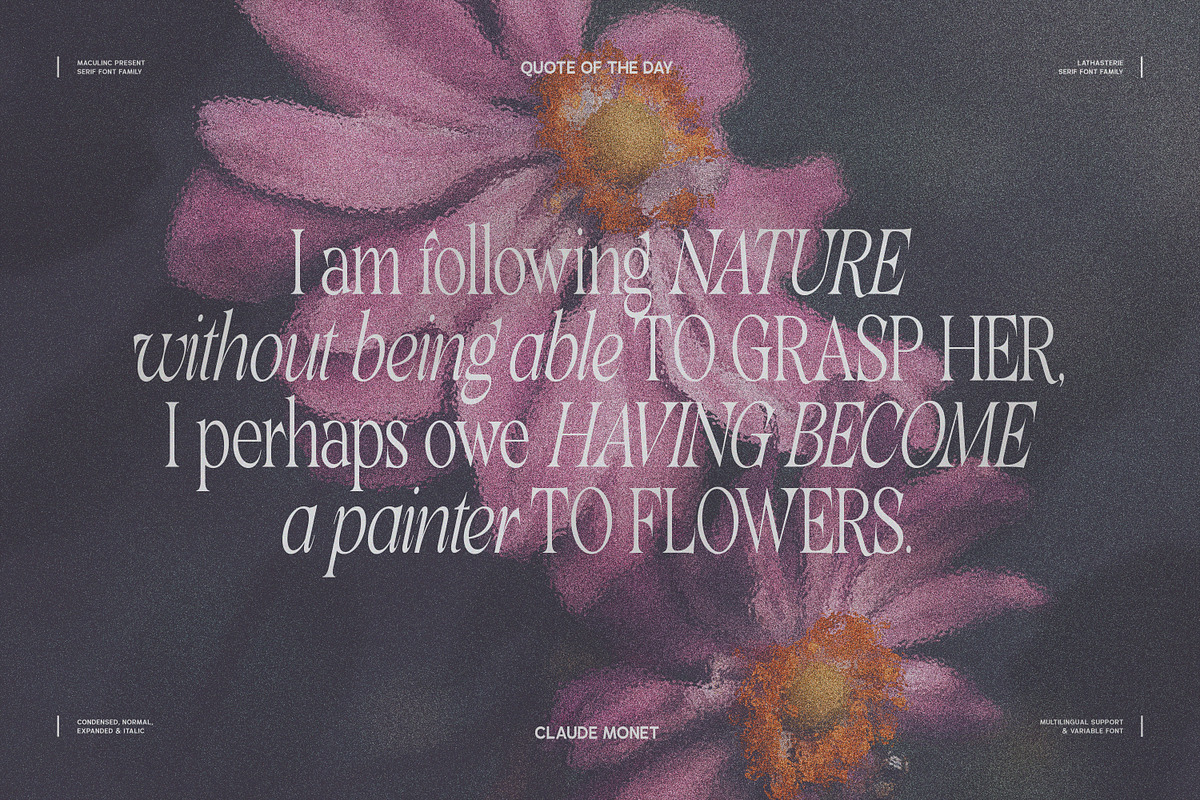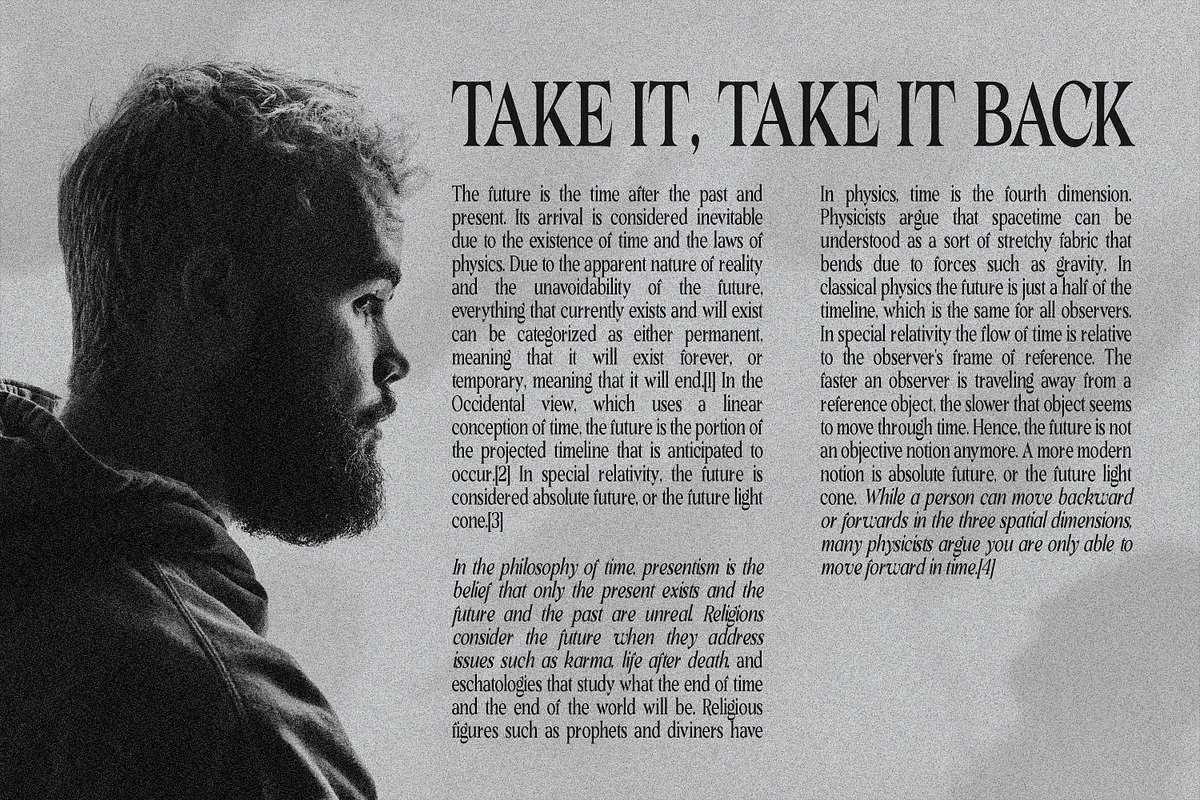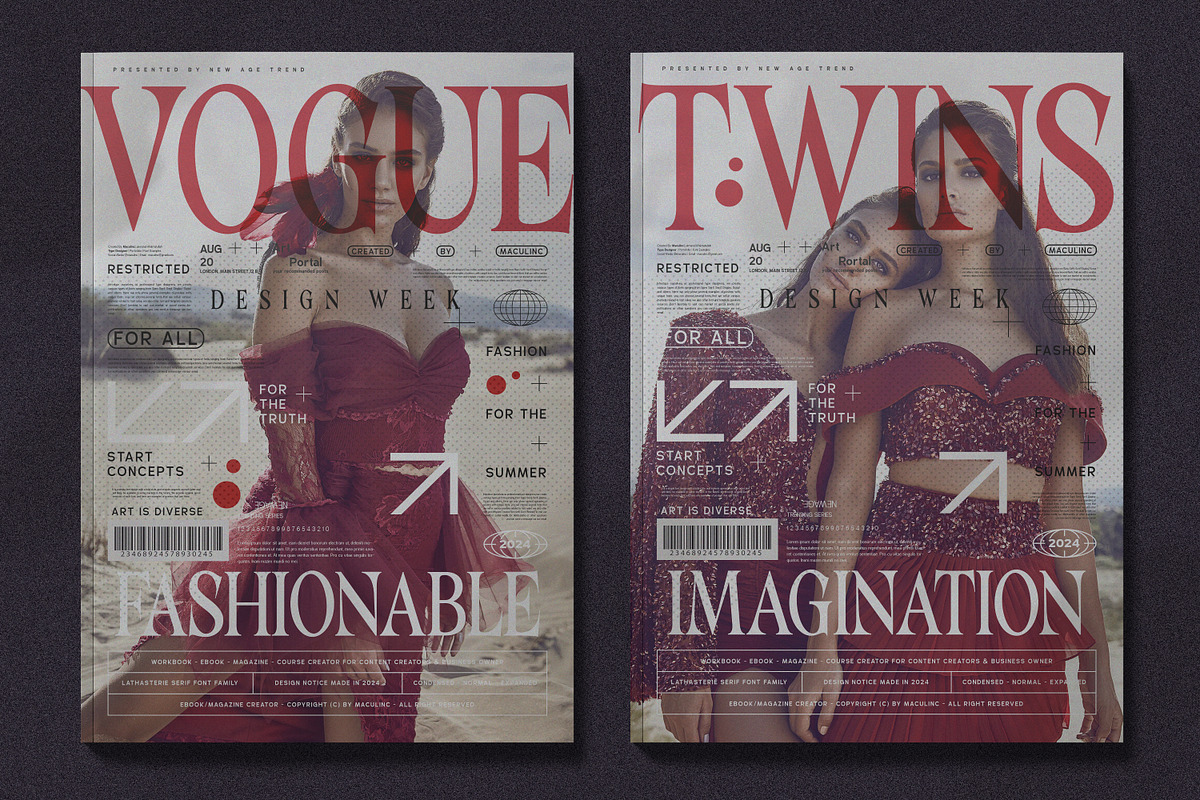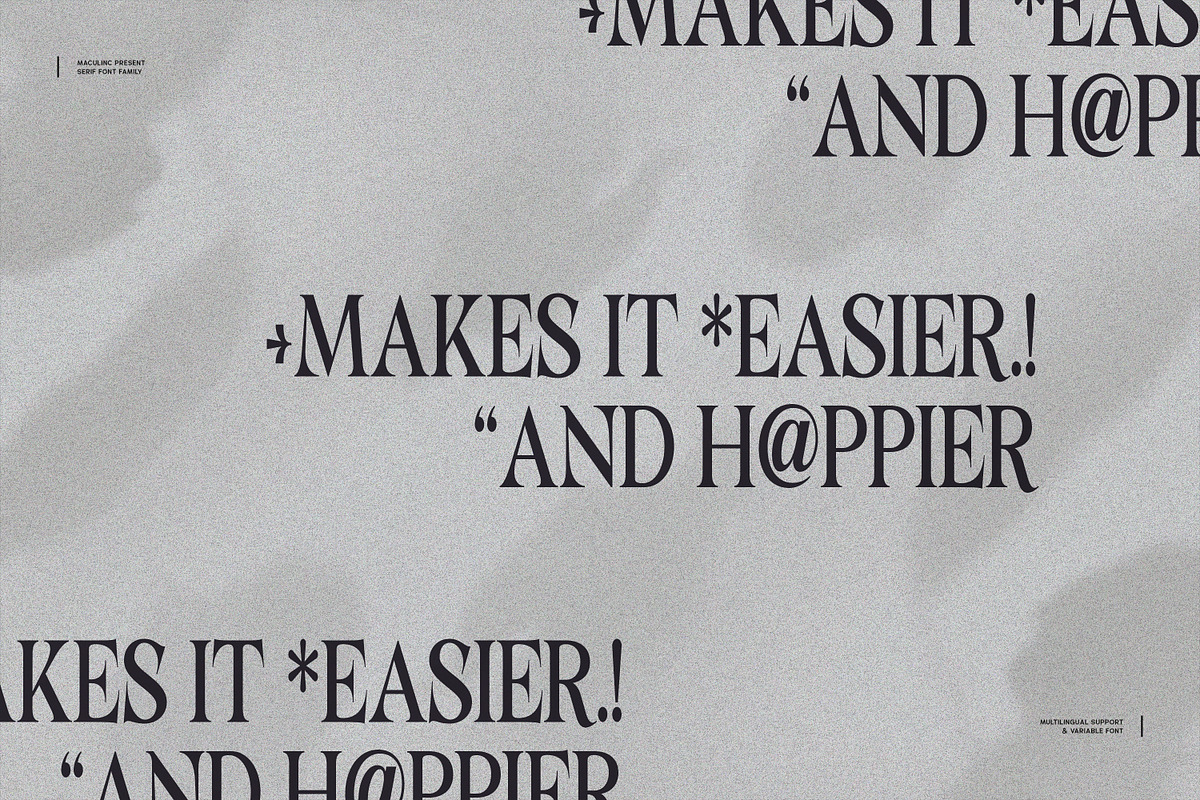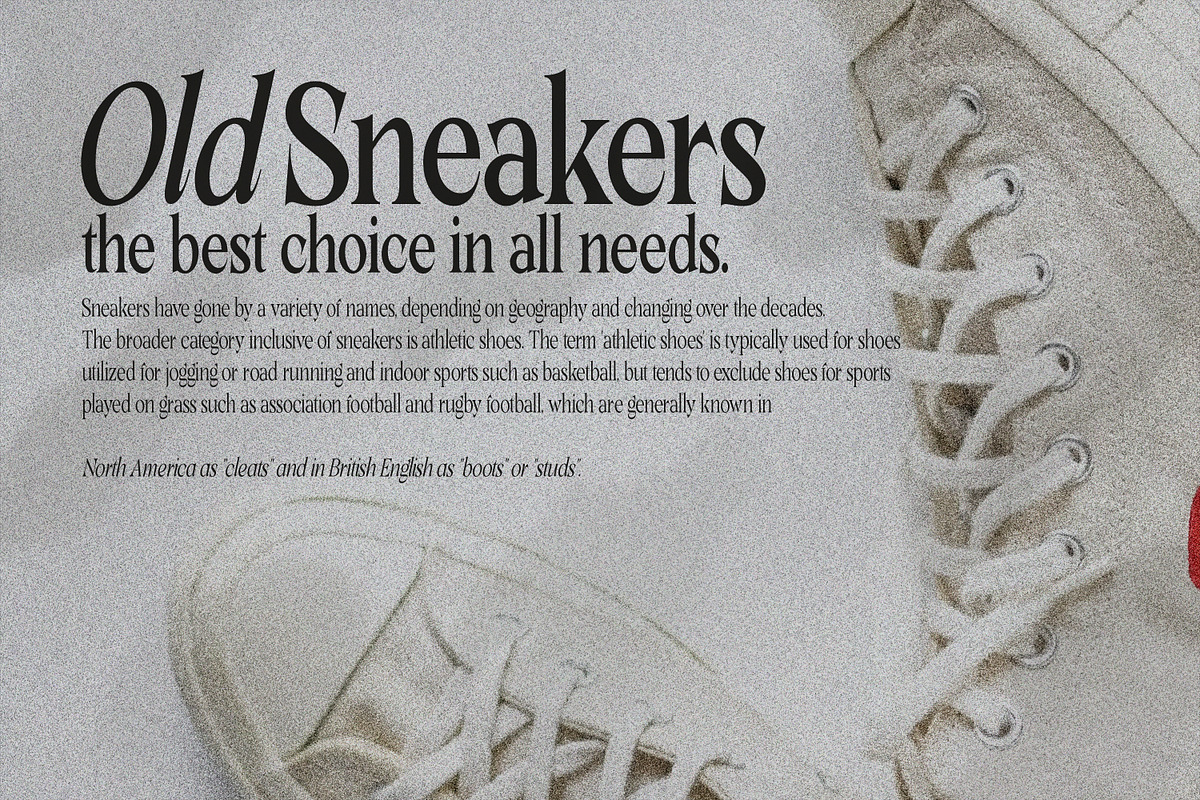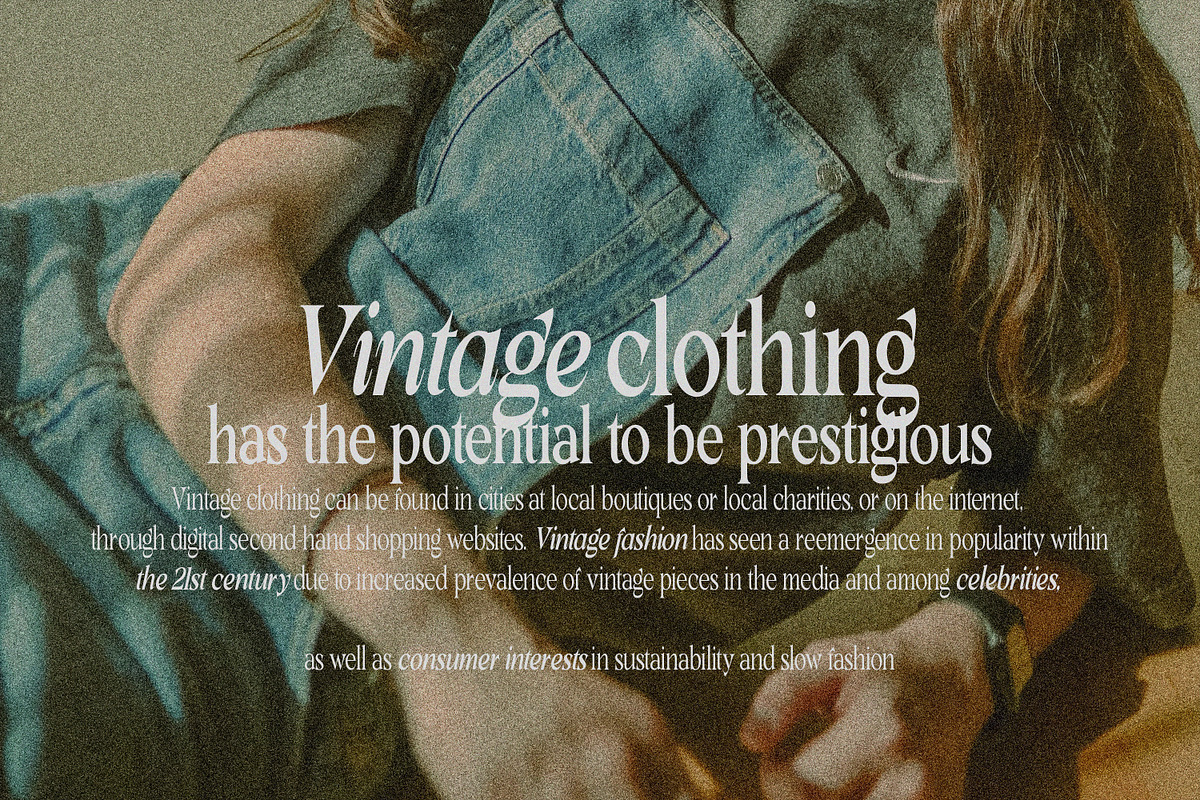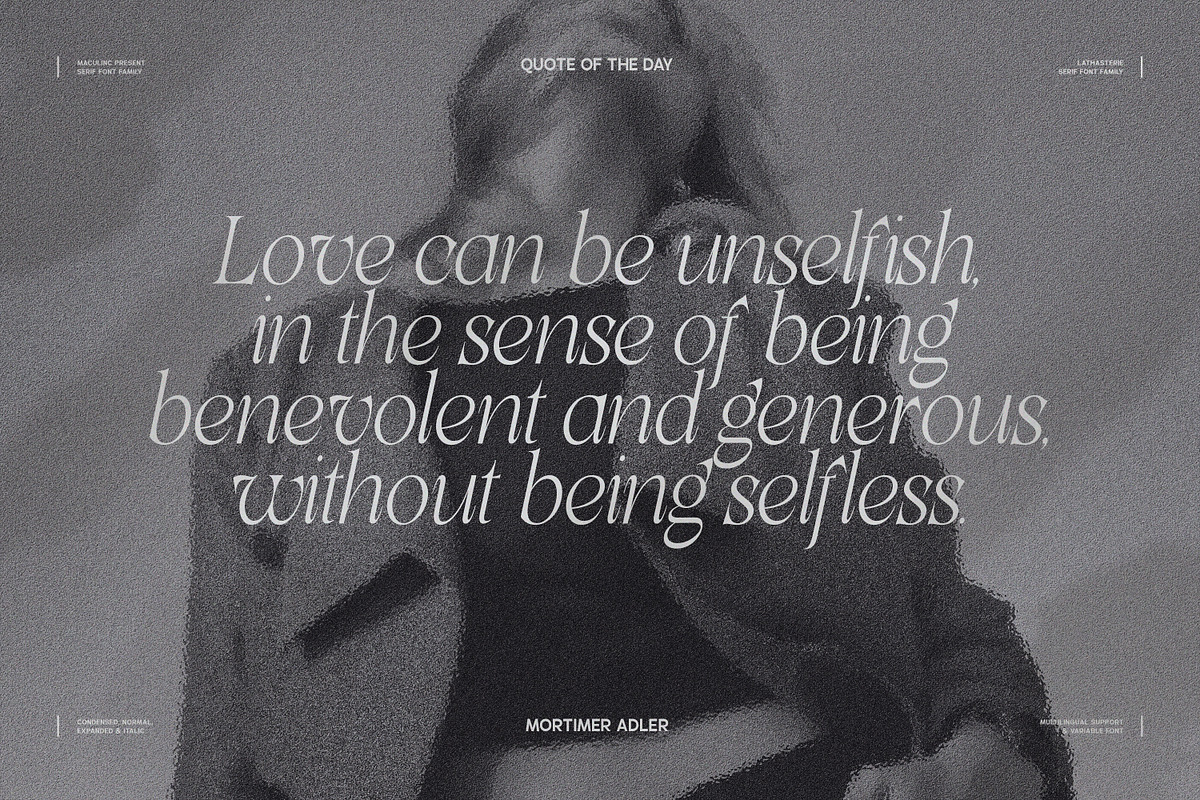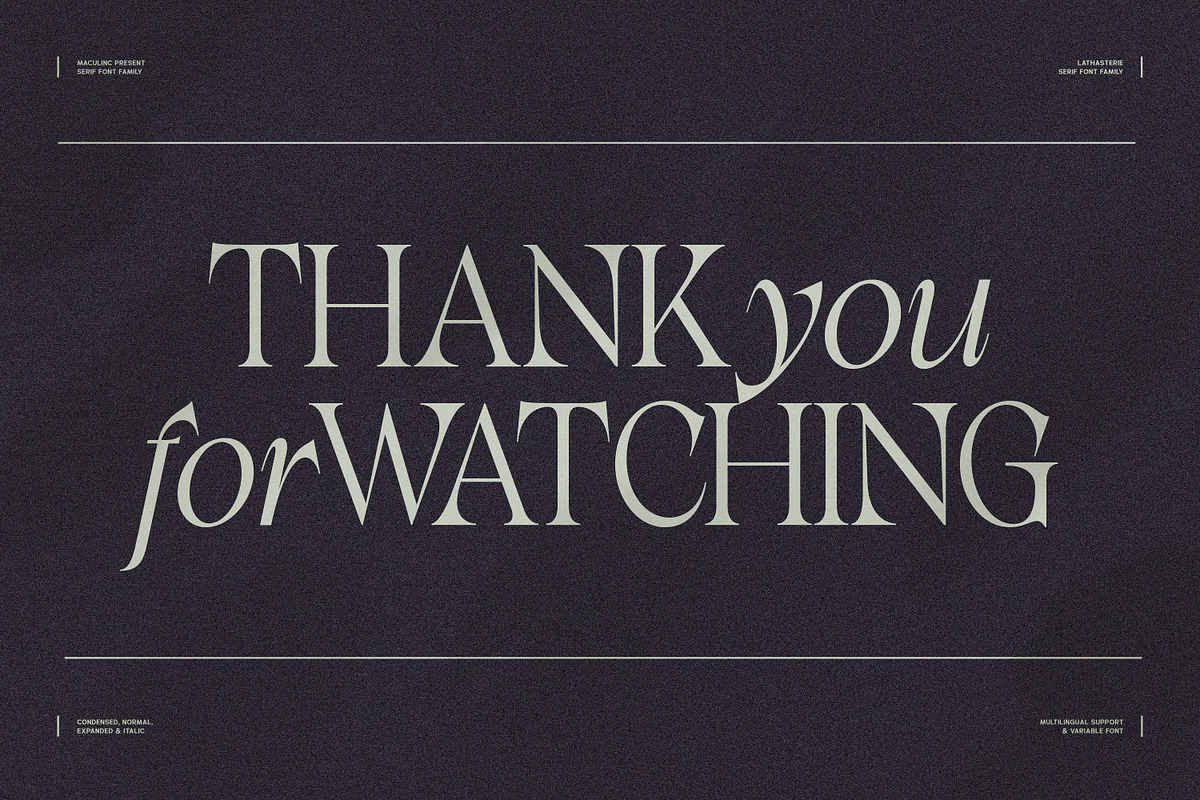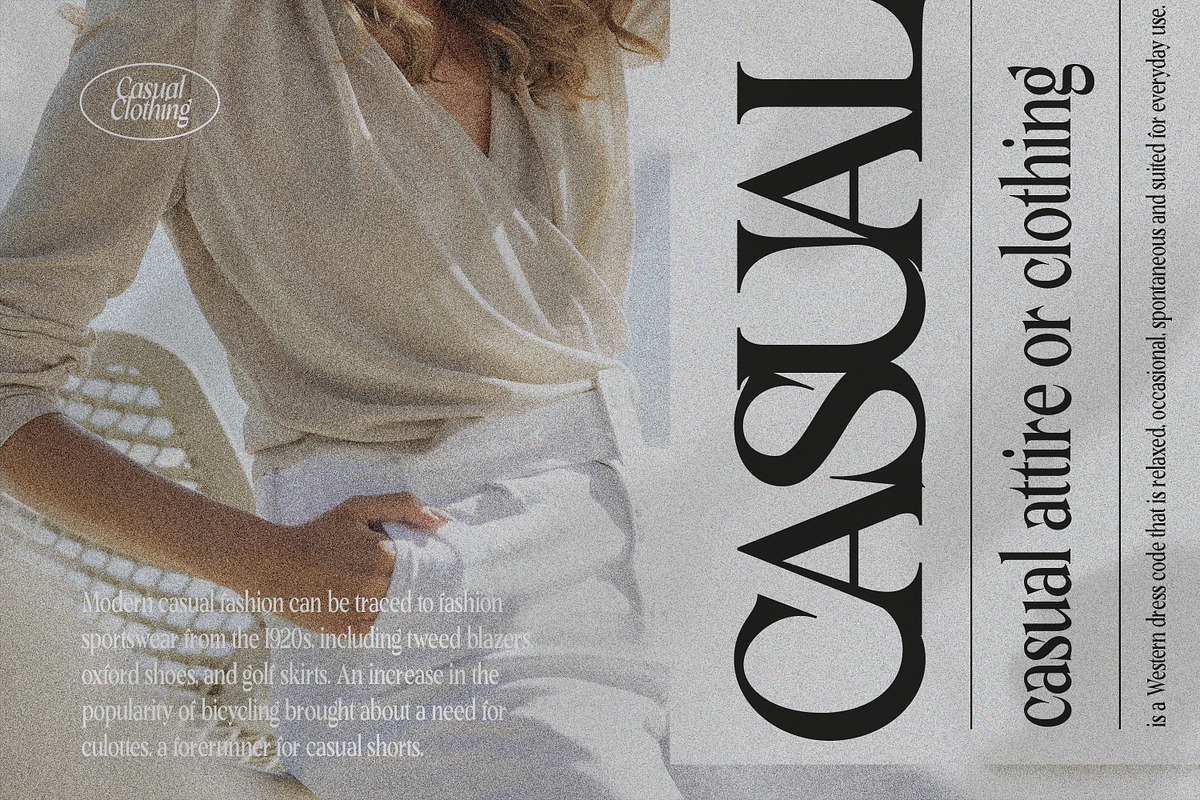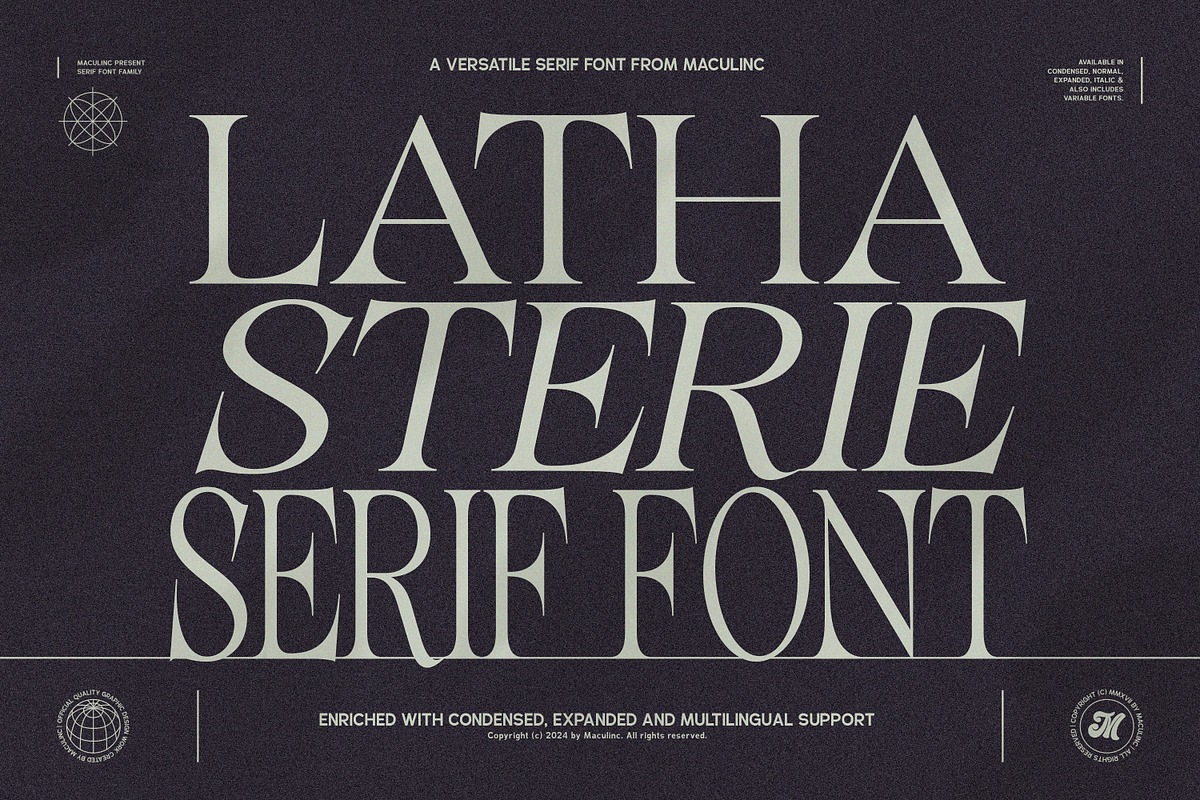
Lathasterie - Serif Font (38 Fonts)
We present Lathasterie Serif Font :) A beautiful font family with various weights and heights - In Regular and Italic styles - over 30 fonts in total. Two handy variable fonts are included if you have software that can read variable fonts. Equipped with numbers, punctuation and multilingual support.
Lathasterie Serif is unique and stylish, available in short, normal, long and italic formats. With a retro touch, this font is capable of creating stunning works, made to be very versatile - can be transformed into sophisticated and complex projects - or bold and daring retro designs. Just take your pick :) Use the Typeface tester below to type your text and try it out!